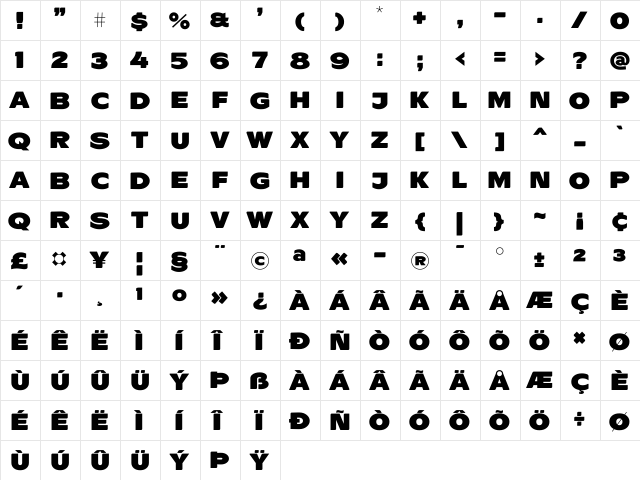
ResotE Regular
| Foundry | gluk |
| Designer | gluk |
Design Context for ResotE Typeface
ResotE is a composed and adaptable typeface that performs quietly and consistently across a wide range of design contexts.